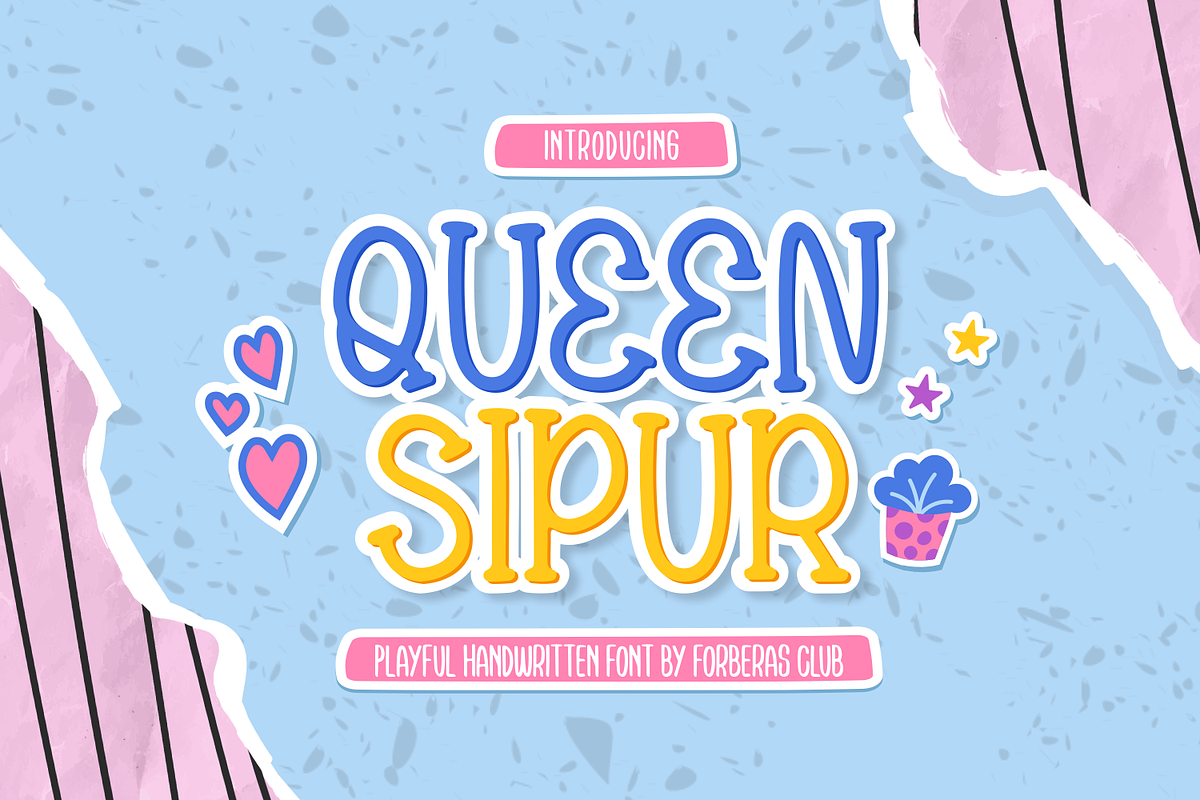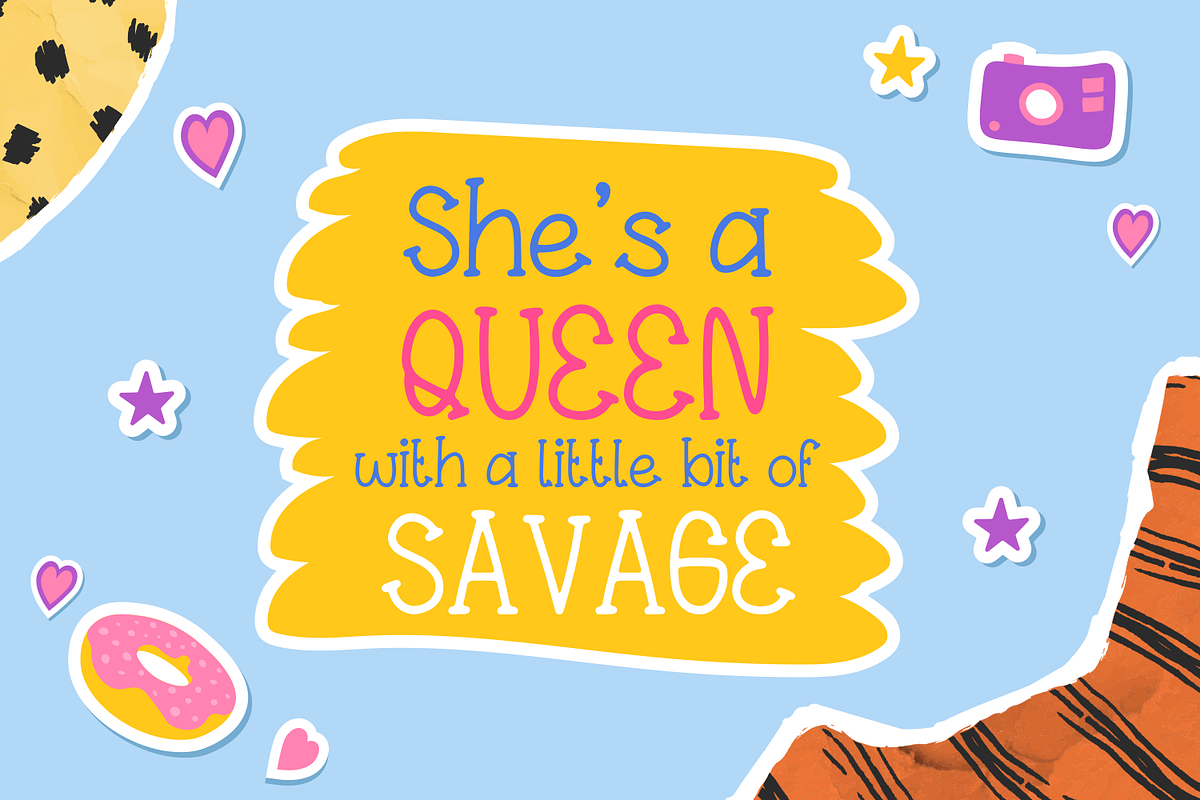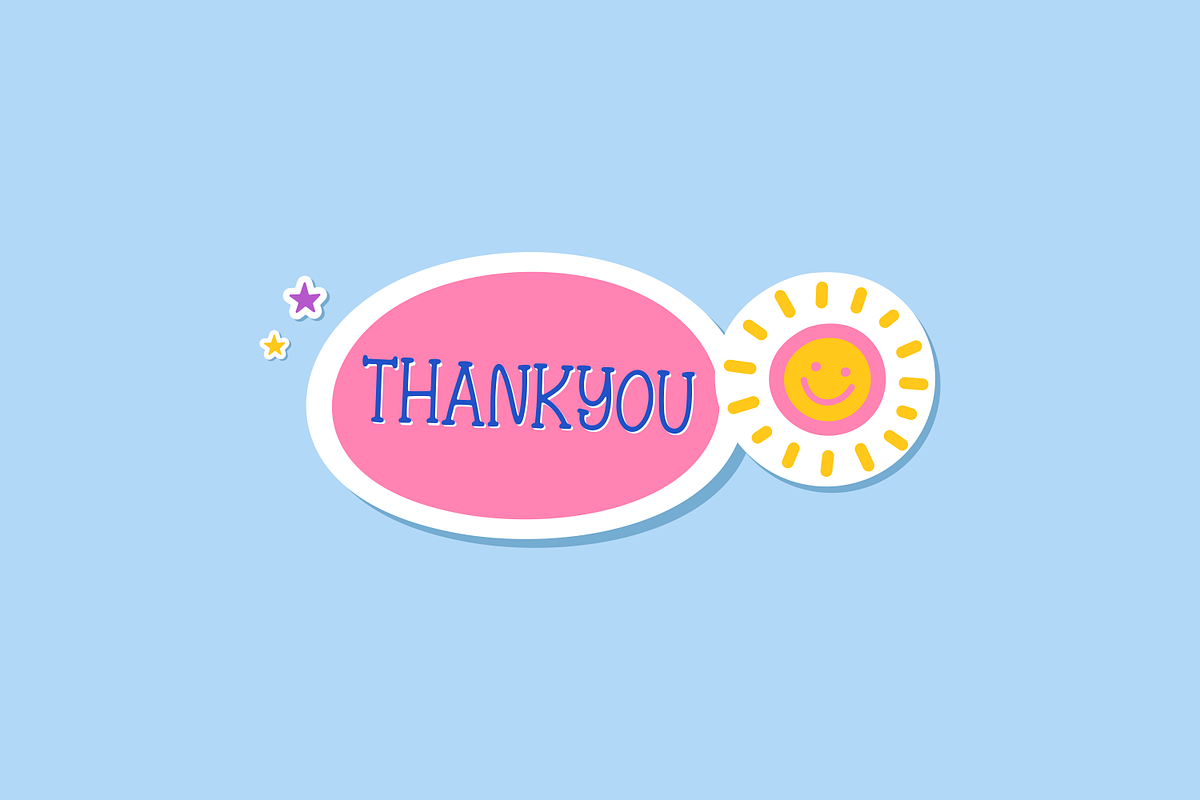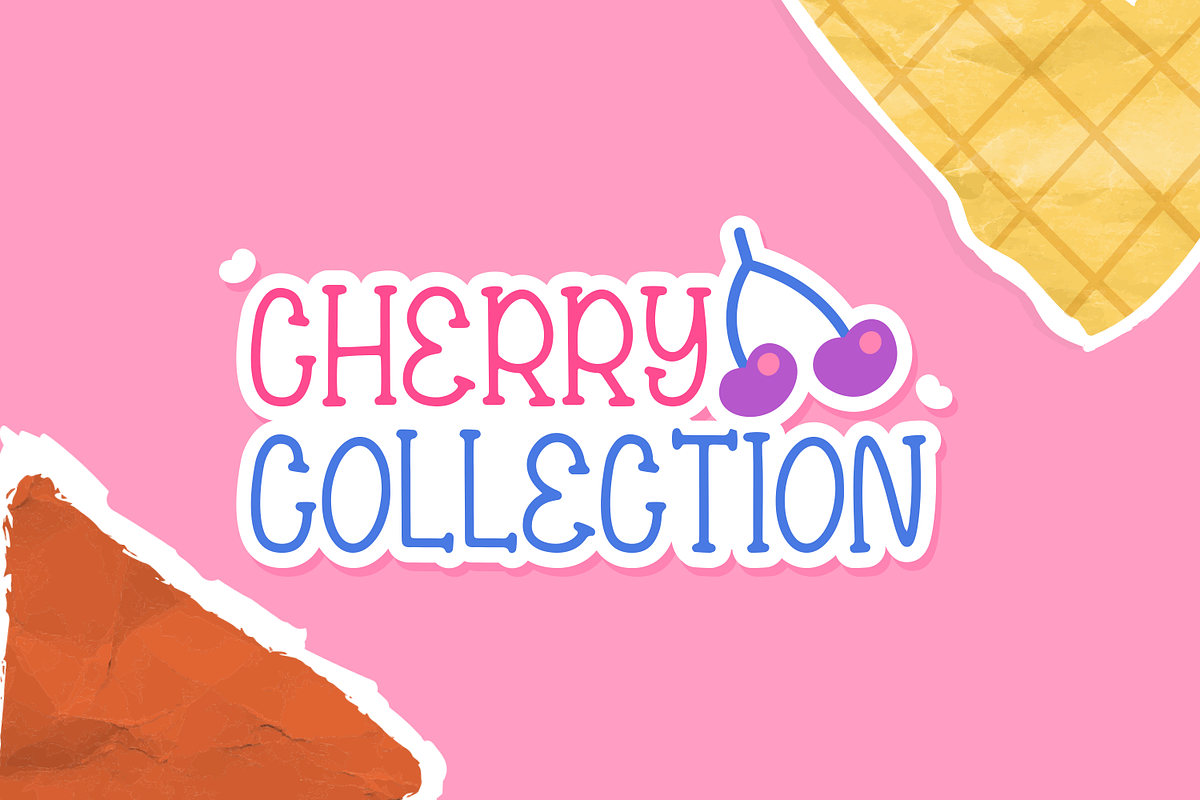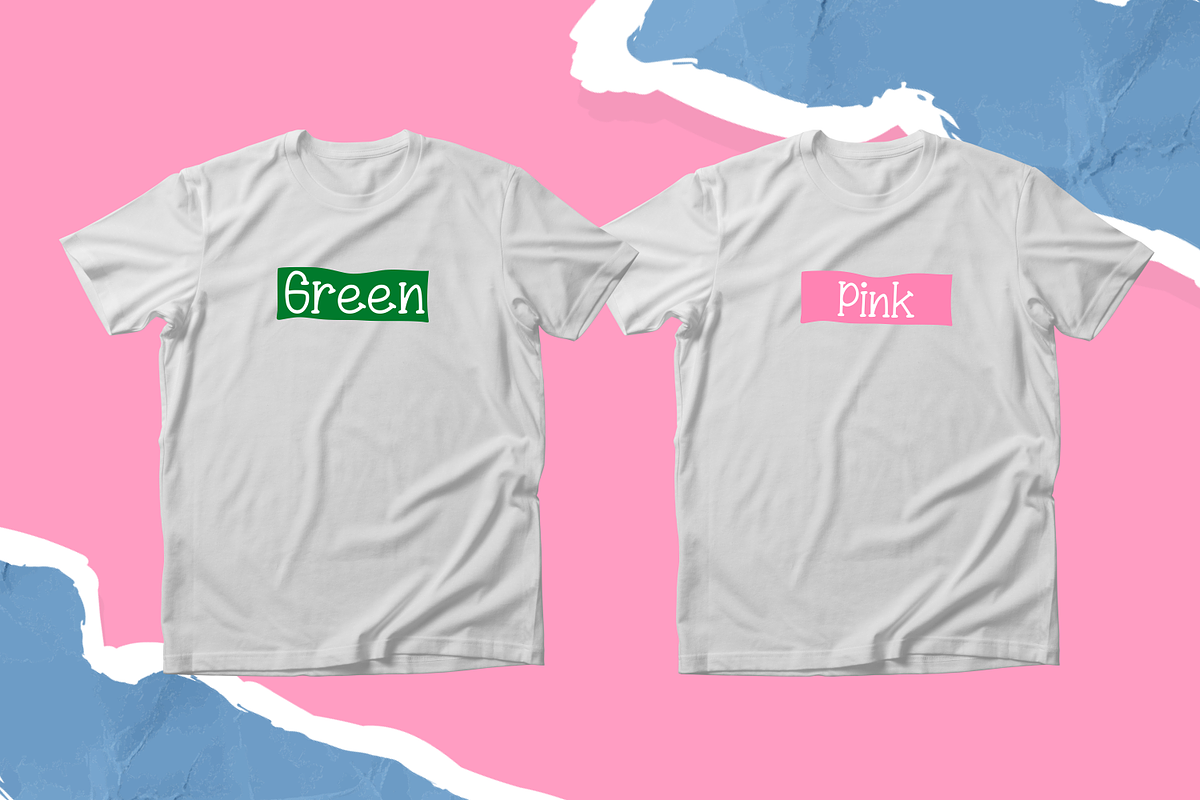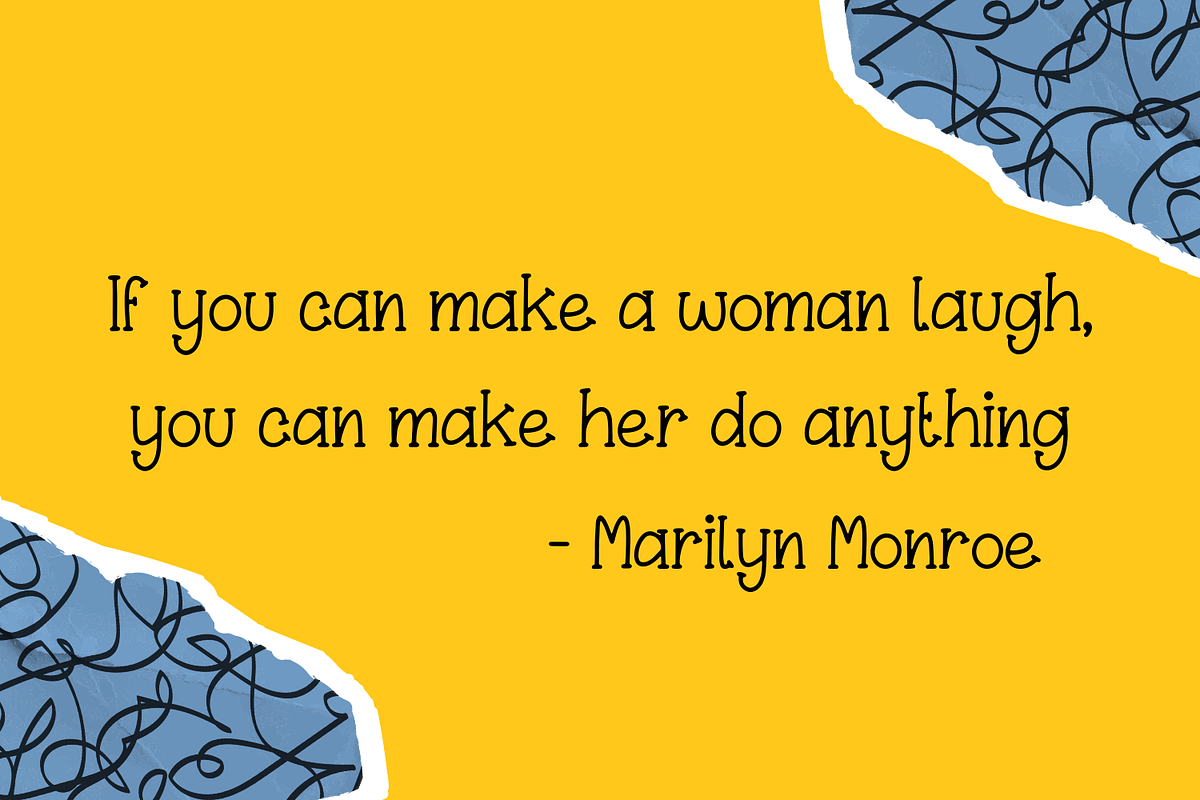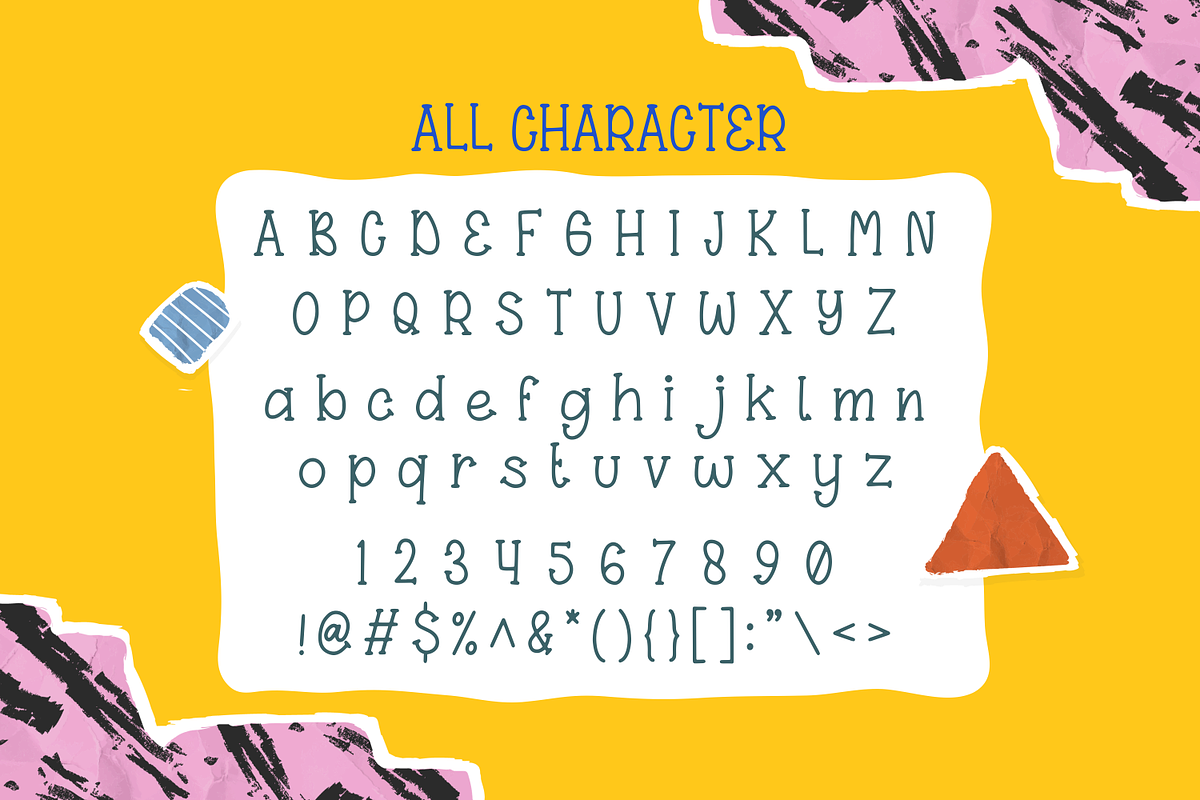
Queen Sipur The Princess
Introducing Queen Sipur by Forberas
Modern and beautiful handwritten script font! Great for wedding greeting cards, logos, branding materials, Invitation, business cards, quotes, posters, Cricut artwork and more!